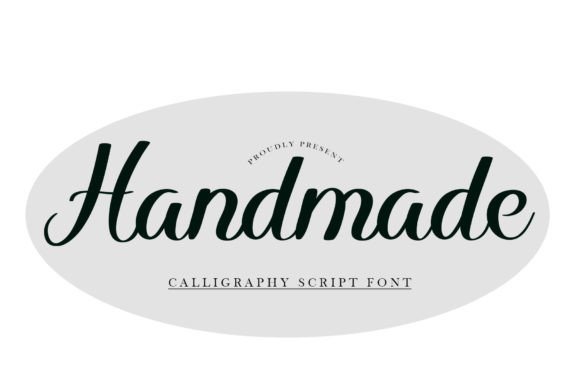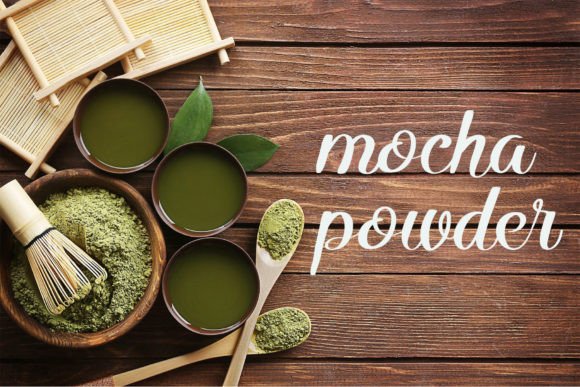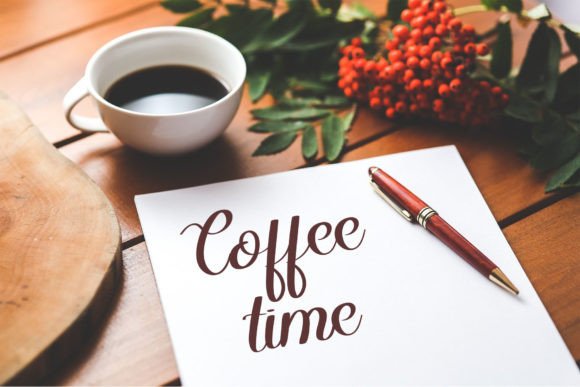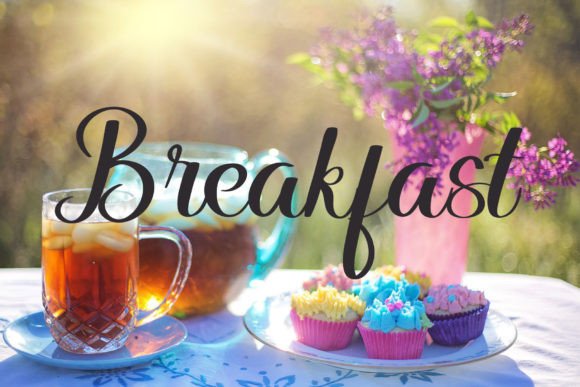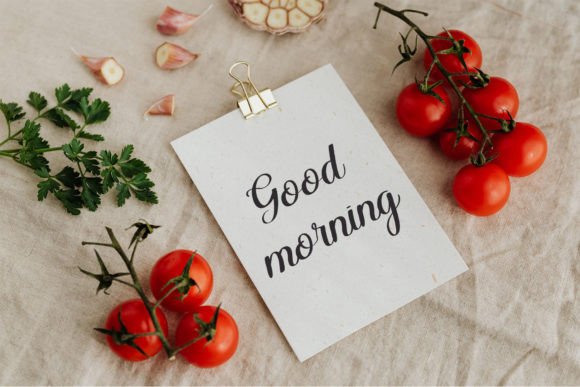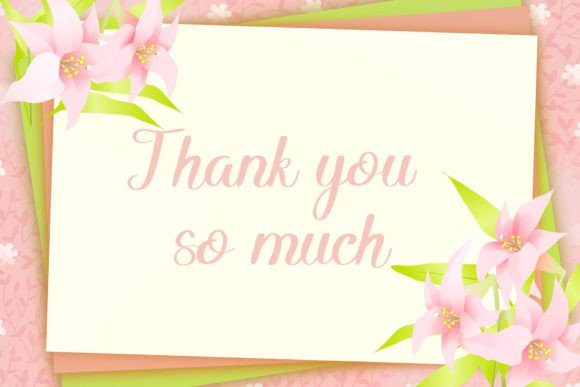
Discover the Magic of Handmade Font
There’s nothing quite like the thrill of bringing an idea to life – the spark of creativity, the rush of excitement, and the satisfaction of seeing your vision take shape. For designers, this moment is a familiar friend, one that fuels our passion and inspires us to push the boundaries of what’s possible. And it’s in these moments that the right font can make all the difference, elevating our designs from good to great.
Enter the Handmade Font, a beautiful and elegant handwritten font that adds a touch of sophistication to any project. With its unique and timeless style, it’s the perfect choice for designers looking to add a personal touch to their work. Whether you’re creating a wedding invitation, a branding package, or a social media graphic, the Handmade Font is sure to impress.
Handmade Font Key Features
- Unique Characteristics: The Handmade Font features a unique, hand-drawn design with subtle imperfections, giving it a warm and personal touch.
- Character Set: The font includes a comprehensive character set, including Latin, Cyrillic, and Greek alphabets, as well as a range of punctuation and symbol characters.
- Style Variations: The font comes in multiple style variations, including regular, bold, italic, and bold italic, allowing designers to add depth and emphasis to their text.
Handmade Font Review
As a designer, I’ve had the chance to work with many fonts, but “Handmade Font” is definitely a unique one. Here’s my honest take on it.
- The font’s organic feel is a great asset for projects that require a personal touch.
- It’s perfect for creative industries like craft, art, or design, where the hand-made aesthetic is a key selling point.
- The font’s character set is extensive, making it suitable for a wide range of applications.
- The font’s uniqueness will definitely help your project stand out from the crowd.
- The font’s readability can be an issue at smaller font sizes or in certain contexts.
- The irregularities of the font can sometimes make it difficult to read for those with certain visual impairments.
- The font’s weight and spacing can be inconsistent, which may require manual adjustments.
Overall, I’d say “Handmade Font” is a great choice for designers who want to add a personal touch to their projects. While it may have some limitations, its unique character and extensive character set make it a valuable addition to any design arsenal.
Use the Handmade Font for creating unique and personalized designs, such as invitations, logos, and branding materials.
Experiment with different font sizes, colors, and styles to achieve the desired look.
Combine the Handmade Font with other creative elements, such as illustrations and graphics, to create visually appealing designs.
The Handmade Font is ideal for various applications, including:
Branding materials, such as logos and business cards
Social media graphics and ads
Personalized gifts and merchandise